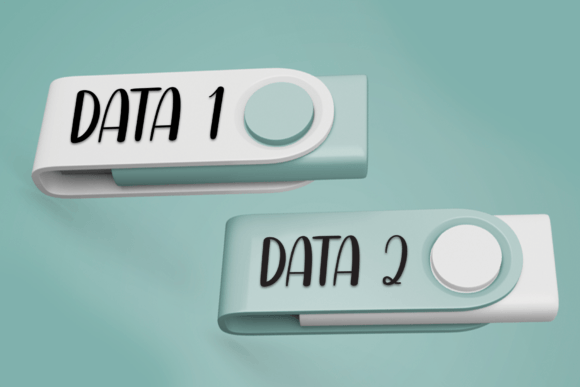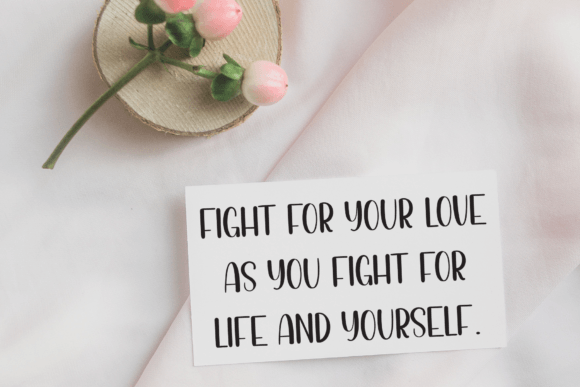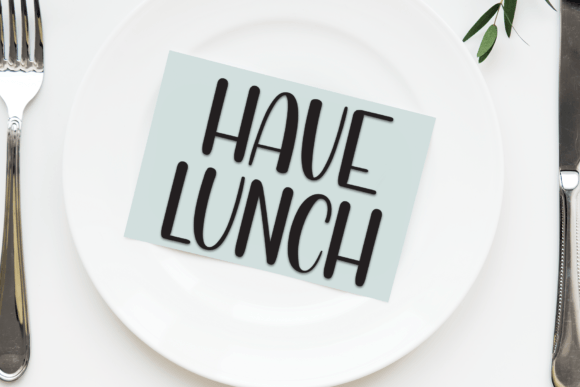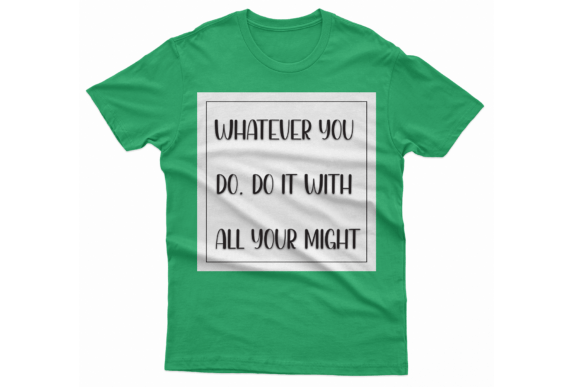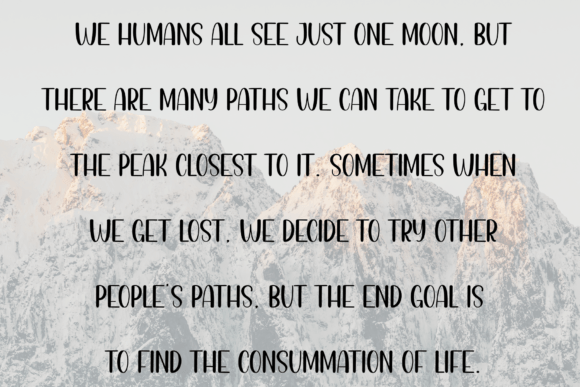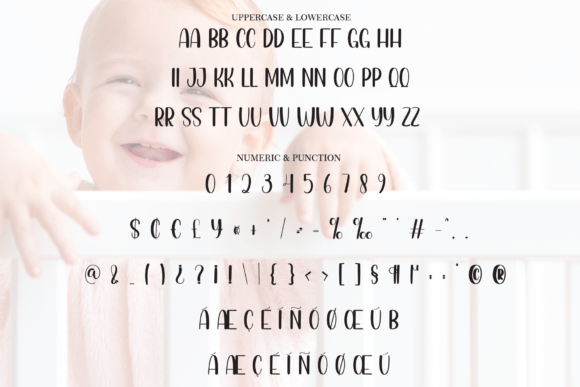
Babyboy Font: The Sweet and Friendly Handwritten Font for Your Creative Projects
Are you looking for a font that can add a touch of sweetness and friendliness to your designs? Look no further than the Babyboy Font! This beautiful handwritten font is perfect for creating wedding invitations, cards, and other designs that require a fun and playful touch. In this article, we’ll take a closer look at the Babyboy Font, its features, and how you can use it to elevate your creative projects.
What is Babyboy Font?
Babyboy Font is a sweet and friendly handwritten font that is designed to bring a touch of warmth and personality to your designs. With its fresh and cute style, this font is ideal for creating a wide range of projects, from wedding invitations and cards to posters, flyers, and more. Whether you’re a designer, crafter, or DIY enthusiast, Babyboy Font is a great addition to your font collection.
Key Features of Babyboy Font
So, what makes Babyboy Font so special? Here are some of its key features:
- Handwritten style: Babyboy Font has a beautiful handwritten style that gives it a personal and unique touch.
- Sweet and friendly: This font is designed to be sweet and friendly, making it perfect for projects that require a playful and approachable tone.
- Fresh and cute: With its fresh and cute style, Babyboy Font is ideal for creating designs that are fun and youthful.
- Versatile: This font can be used for a wide range of projects, from wedding invitations and cards to posters, flyers, and more.
How to Use Babyboy Font in Your Designs
Now that we’ve covered the features of Babyboy Font, let’s talk about how you can use it in your designs. Here are some ideas to get you started:
- Wedding invitations: Babyboy Font is perfect for creating beautiful and unique wedding invitations that set the tone for a special day.
- Cards: Whether you’re creating birthday cards, thank-you cards, or holiday cards, Babyboy Font is a great choice.
- Posters and flyers: This font can be used to create eye-catching posters and flyers for events, promotions, and more.
- Social media graphics: Babyboy Font can be used to create engaging social media graphics that stand out from the crowd.
Tips for Using Babyboy Font Effectively
Here are some tips for using Babyboy Font effectively in your designs:
- Pair it with other fonts: Babyboy Font can be paired with other fonts to create a unique and interesting contrast.
- Use it in combination with images: This font looks great when used in combination with images, illustrations, and graphics.
- Experiment with colors: Babyboy Font can be used with a wide range of colors, so don’t be afraid to experiment and find the perfect combination.
In conclusion, Babyboy Font is a sweet and friendly handwritten font that is perfect for adding a touch of warmth and personality to your designs. With its fresh and cute style, this font is ideal for creating a wide range of projects, from wedding invitations and cards to posters, flyers, and more. Whether you’re a designer, crafter, or DIY enthusiast, Babyboy Font is a great addition to your font collection.